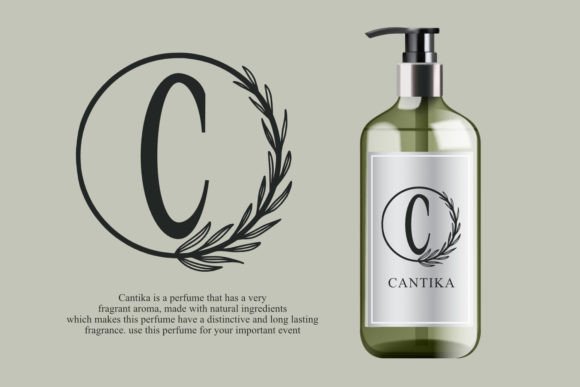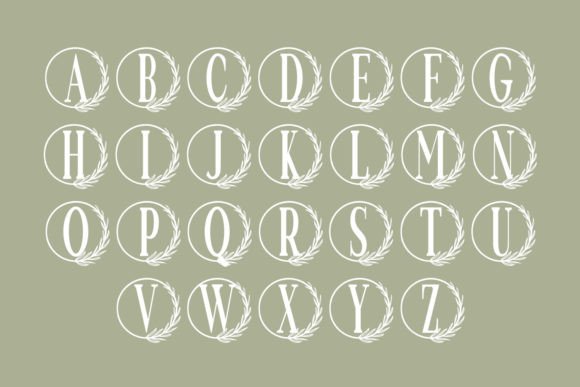
Introduction to Monogram Circle Botanic Font
Have you ever been working on a creative project, pouring your heart and soul into it, only to find the perfect font eludes you? I’ve been there too. The moment I discovered the Monogram Circle Botanic Font, all my design worries vanished. This stunning font is a game-changer for any designer looking to add a touch of elegance and love to their work.
As a valuable design resource, Monogram Circle Botanic Font is a high-quality addition to any designer’s toolkit. Its beautiful, intricate design makes it perfect for wedding crafts, invitations, greeting cards, and even logos. And the best part? It’s available for free download, making it accessible to designers of all levels.
Key Features of Monogram Circle Botanic Font
- High-quality design resource suitable for various creative projects, including digital art and print materials.
- Monogram Circle Botanic Font offers a unique blend of modern and botanical elements, perfect for adding a touch of elegance to your work.
- Features a large character set with multiple weights and styles, allowing for versatile use in different design contexts.
- Can be easily scaled and customized to fit various design needs, from small logos to large signage.
Honest Review: Monogram Circle Botanic Font
I recently had the pleasure of working with the Monogram Circle Botanic Font, and I must say it’s a game-changer for any design project. This high-quality font is a must-have for any creative professional looking to add a touch of elegance to their work.
- ✨ Beautiful and intricate design, perfect for botanical or floral-themed projects
- ✨ Highly customizable, allowing for seamless integration into any design
- ⚠️ Limited font size options, which may require some creative workarounds
Overall, I’m thoroughly impressed with the Monogram Circle Botanic Font. Its unique design and high-quality features make it a valuable addition to any design resource library. While it may have some limitations, the benefits far outweigh the drawbacks, making it a must-try for any creative project.
Monogram Circle Botanic Font
The Monogram Circle Botanic Font is a versatile and elegant design resource that can elevate your creative project to the next level. With its high-quality, unique design, this font is perfect for various applications.
Tips for Getting the Most Out of it
To get the most out of the Monogram Circle Botanic Font, use it with a transparent background to create a seamless design. Experiment with different font sizes and combinations to achieve a unique look.
The Monogram Circle Botanic Font is perfect for wedding invitations, branding materials, and other creative projects that require a touch of elegance and sophistication.